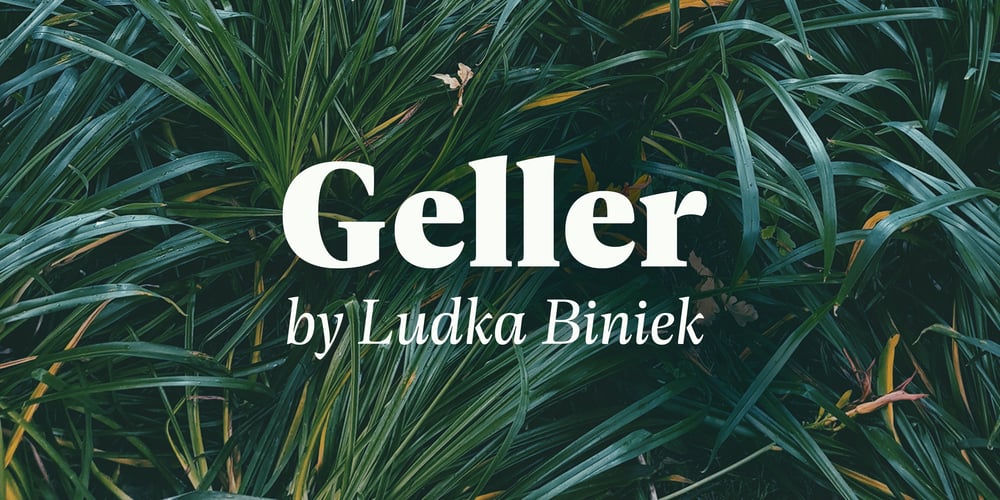
Geller Font Family was designed by published by Ludka Biniek. Geller contains 20 styles and family package options. A truly faithful ally for every designer looking for fresh yet familiar and reliable font choice. Geller was created as a part of graduation project in Typowa Pracownia at Academy of Fine Arts in Warsaw. It is a typeface family especially intended for newspapers, magazines, and advertising. Geller family comes in two optical sizes – headline and text, so it is a complete solution for editorial purposes. During the design process, the technical needs of certain typographic fractions were examined. The capital letters were specially and purposely designed: its modern proportions (derived from Didone fonts) with optimized inner lights as well as short ascenders and descenders work very well within titles and leads. In addition to a wide range of OpenType features, Geller contains bullets & dingbats providing many possibilities of entry points in editorial design. Compact diacritics, proportionally tall x-height, narrow letter construction, all these features allow easy typesetting of narrow text columns and spreads.